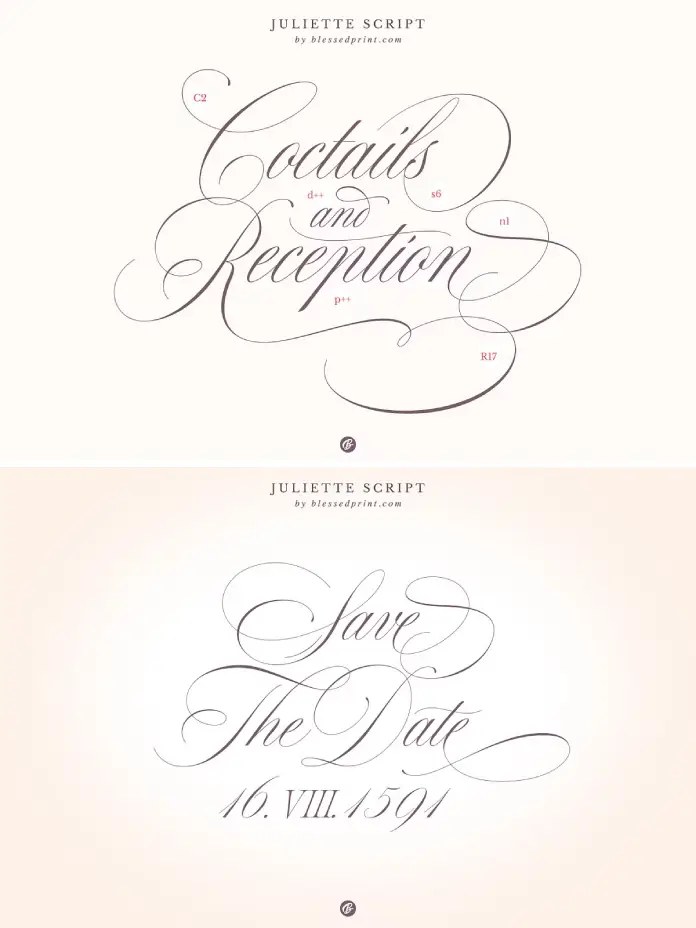
Some typefaces are quiet. Others feel like they were made for a specific moment in design culture — and the Juliette font by Blessed Print is firmly in that second category. Right now, wedding stationery designers, branding studios, and calligraphy-inspired creatives are all chasing the same thing: a script typeface that feels genuinely handwritten, carries real emotional weight, and still performs across professional applications. Juliette Script delivers exactly that. Built on the foundations of Spencerian script and classic American penmanship, it brings something rare to the table — the kind of romantic authenticity that digital typefaces almost never manage to capture.
If you work in wedding design, luxury branding, or elegant editorial, this typeface belongs in your font library. Here’s why it matters — and what makes it genuinely different from the dozens of script fonts competing for the same shelf space.
What Makes Juliette Script Different From Other Wedding Script Fonts?
The wedding font market is overcrowded. There are hundreds of script typefaces positioned as “elegant,” “romantic,” or “timeless” — yet most of them collapse under scrutiny. They look beautiful in mockups, but they fall flat in actual use. Letterforms that seemed graceful at first glance quickly reveal inconsistencies. The alternates are limited. The spacing is awkward. The glyph set barely covers basic Latin.
Juliette Script is built differently. Blessed Print — the designer behind well-loved scripts like Mozart and Ecatherina — has clearly approached this typeface as a serious typographic project, not a quick commercial release. The result is a font with over 1,600 glyphs, a rich alternate system, and three distinct width and weight variations. That level of technical depth is unusual in the wedding script category. It pushes Juliette from a decorative tool into a full creative system.
The Spencerian Heritage Behind the Juliette Font Family
Spencerian script emerged in mid-19th-century America as the dominant business penmanship style. It was fluid, elegant, and deliberately expressive — designed to communicate refinement and character in equal measure. Today, it lives on primarily in calligraphy circles and premium brand identities. The Coca-Cola wordmark is Spencerian. So is the Ford logo. The style carries genuine cultural weight.
Juliette draws from this tradition without becoming a historical artifact. The letterforms feel rooted — you can sense the pen pressure, the rhythmic stroke variation, the natural pull of a nib across paper. But they also feel contemporary. That balance is difficult to achieve, and it’s one of the reasons Juliette works so well across modern design contexts.
Breaking Down the Juliette Font’s Glyph System
Most professional designers will tell you that the real value in a script typeface isn’t the default letterforms — it’s the alternates. A single glyph variation can change the entire energy of a word. Juliette understands this completely. With over 1,600 total glyphs and some individual letters offering 40 or more variations, the creative range here is genuinely remarkable.
To access alternate glyphs in Juliette, you activate OpenType ligatures and type a number after the letter. So a1, a2, a3, each produce a distinct variation of the lowercase “a.” This gives designers direct, intuitive control over how a word or phrase flows on the page. You’re not passively accepting what automatic substitution provides — you’re actively composing letterform combinations the way a calligrapher would construct a piece by hand.
Width and Weight Variations: A Typographic Framework for Flexibility
What Juliette offers beyond most script typefaces is a structured variation system across both weight and width. The font ships with nine files covering three width options — Regular, Medium, and Extended — and three weight options: Normal, Ex1, and Ex2. This creates what I’d call a Dimensional Script Matrix: a grid of stylistic registers that allows designers to dial in the exact presence and rhythm the project demands.
A tighter, lighter setting in Regular/Normal reads as intimate and refined. A heavier setting in Extended/Ex2 commands attention — perfect for large-format signage, event branding, or luxury packaging headers. This kind of flexibility is genuinely rare in the wedding script category, where most typefaces offer a single weight and expect designers to compensate with sizing alone.
Who Should Be Using the Juliette Font?
The short answer: anyone working at the intersection of elegance and expression. But let’s be more specific about where the typeface earns its keep most effectively.
Wedding designers are the obvious primary audience. Juliette’s Spencerian base gives it the romantic authority that ceremony stationery demands — names, vows, and venues all benefit from its fluid, unhurried letterforms. The extensive uppercase swash options mean invitation suites can feel genuinely custom without requiring hand-lettering skills.
Brand identity designers working on feminine, luxury, or heritage-positioned brands will find Juliette particularly useful. The alternate system allows for wordmark development that feels bespoke rather than templated. Similarly, packaging designers in beauty, fragrance, and artisan food categories will find that Juliette elevates a product’s perceived value immediately.